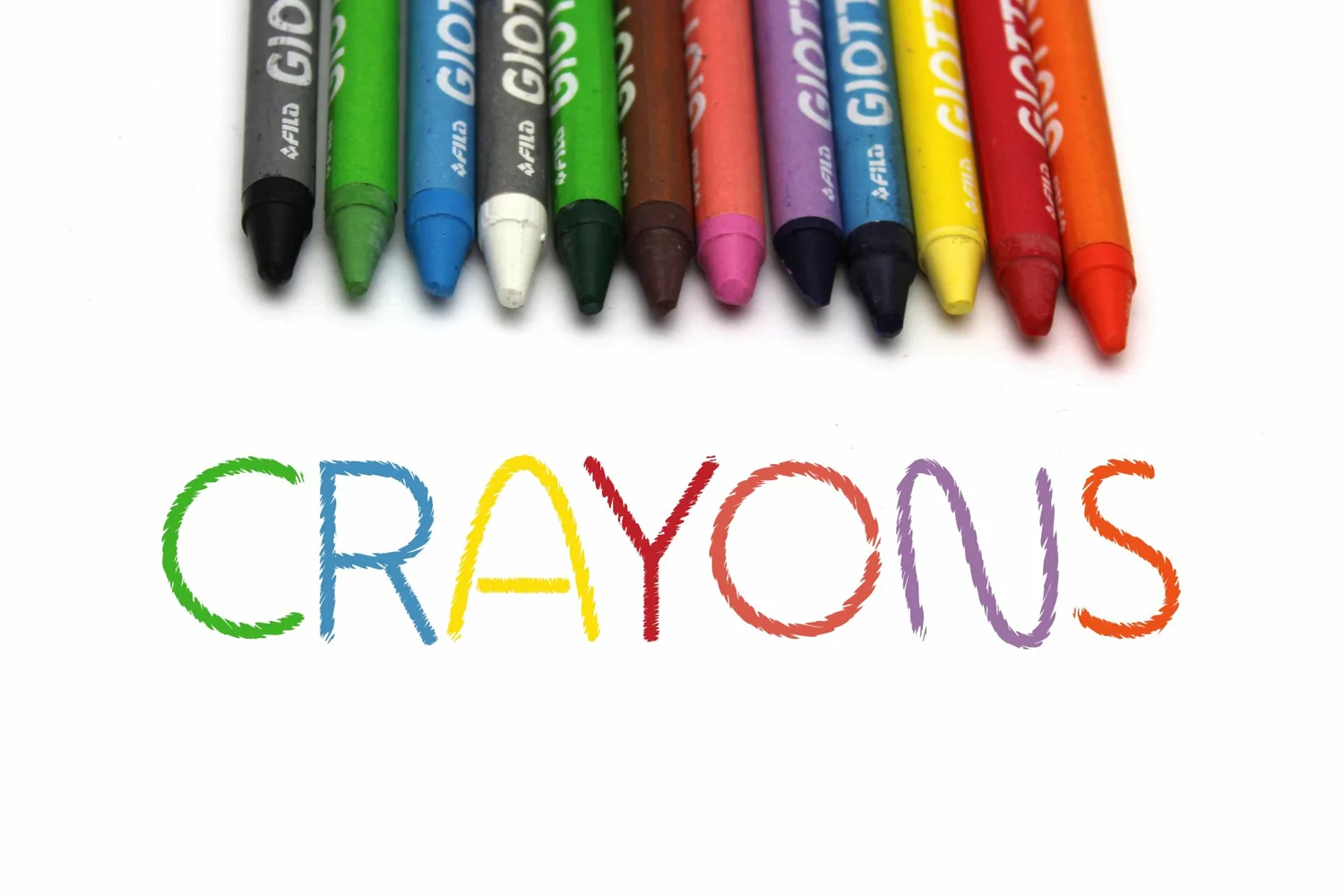
Crayons Sketch is a sweet and playful display font.
Crayons is a sweet and playful sketched display font. This font is perfect for children themed designs, especially when combined with bright colors.
Perfect for projects such as children books, greeting cards, toys, posters, baby clothing, T-Shirt designs ..